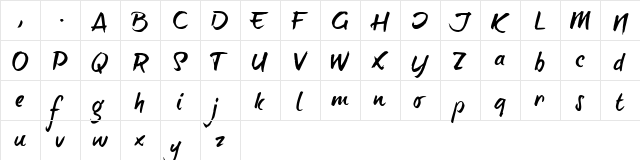
brush-tipTerrence Regular Font Preview
brush-tipTerrence Regular
brush-tipTerrence Regular Font Details
| Foundry | JJW van der Ham / JOEBOB graphics |
| Designer | JJW van der Ham / JOEBOB graphics |
Design Context for brush-tipTerrence Typeface
brush-tipTerrence flows with the natural rhythm of handwritten lettering, making it ideal for designs that call for warmth and personal expression.
Font Pairing: Combine brush-tipTerrence with a simple geometric sans for maximum contrast — the tension between flowing curves and clean structure is a classic typographic pairing.
Pro Tip: Pair brush-tipTerrence with a clean sans-serif for supporting text. The contrast between fluid script and geometric structure creates an elegant typographic hierarchy.